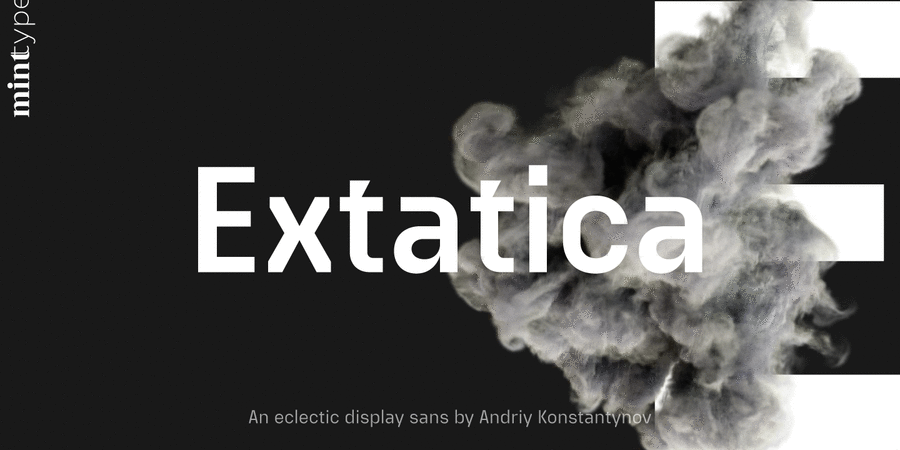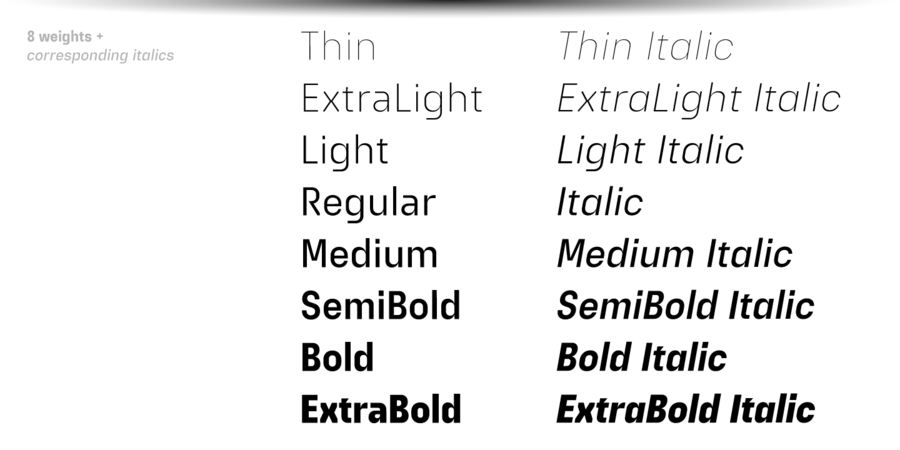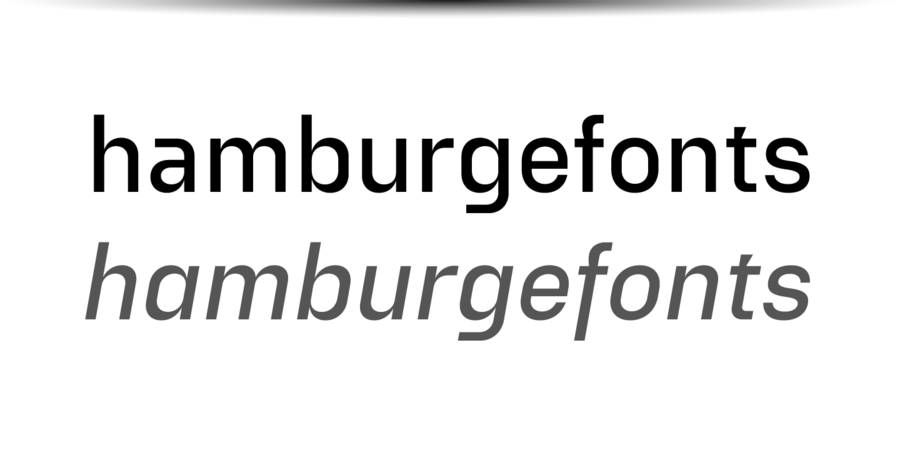
This is an eclectic geometric display sans-serif typeface with narrow capitals. It comes in 8 weights with corresponding italics, enriched with several stylistic alternates and OpenType features. The glyph set includes all European Latin-based languages, as well as major languages that use Cyrillic script. Despite being created as a display font family, Extatica also works well in small text sizes, which makes it perfect for stylized captions and subhead paragraphs. The typeface was designed by Andriy Konstantynov and released in Mint Type foundry in 2021.
Associations for font family ExtaticaTypeface personality and character:
accurate, flat, rectangular, stable, static, urban, transparent, laconic, thin, cold, minimalistic, glass, sharp, fragile, wire, cutting, broken, original, distinctive, interesting, technogenic, urbanistic, convincing, solid, serious, self-assured, strong, industrial, authoritative, automatic, steel, modern, logical, artificial, machine, engineering, motivating, railway, schematic, workman, iron, tough, ambitious, architectural, rude, brutal, important, military, heavy, severe, crystallic, straight, army, extremal
equipment, device, architecture, science, city, technology, design, urban studies, gadget, machine tool, tool, IT specialist, IT, factory, engineer, automation, space, industry, power station, energy industry, rocket, satellite, mechanical engineering, port, constructor, airsoft, construction, building, railway carriage, scheme, railway, x-ray, astronomy, fitness equipment, repairs, army, weapons, architect, selfie, truck, trucker, steel-maker, motor, engine, oil, crystal, code, packing, Extreme, helmet Typeface exhibits stylistic traits: